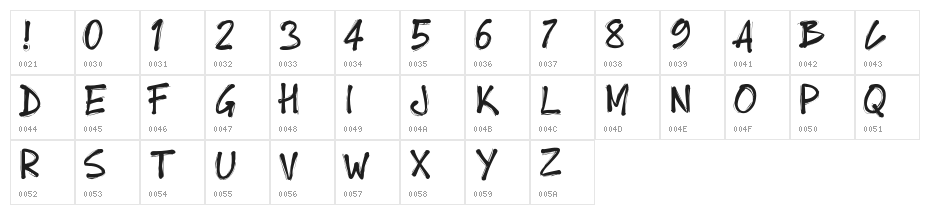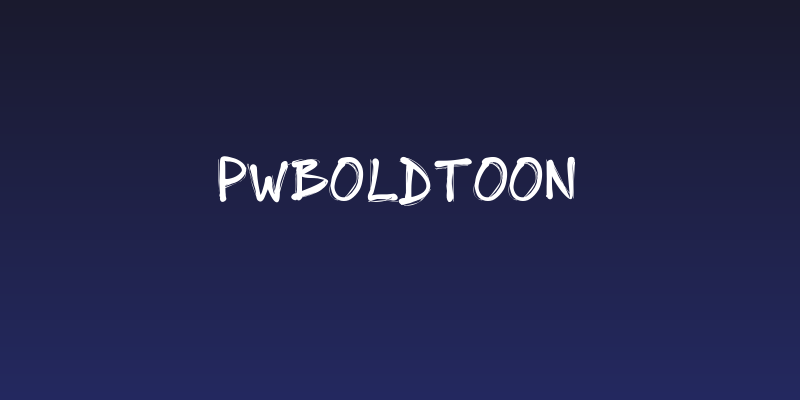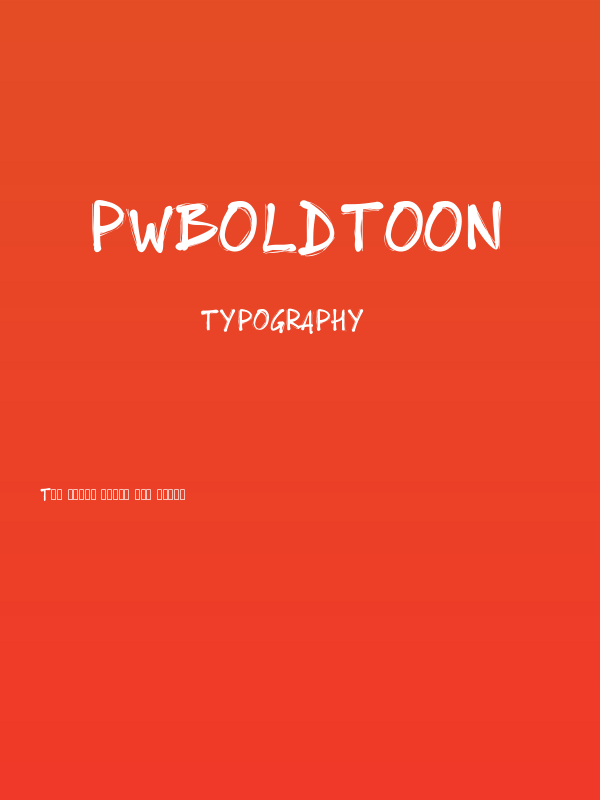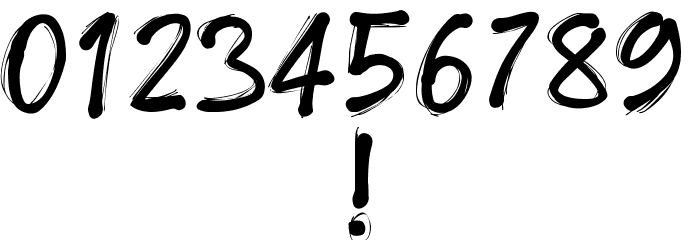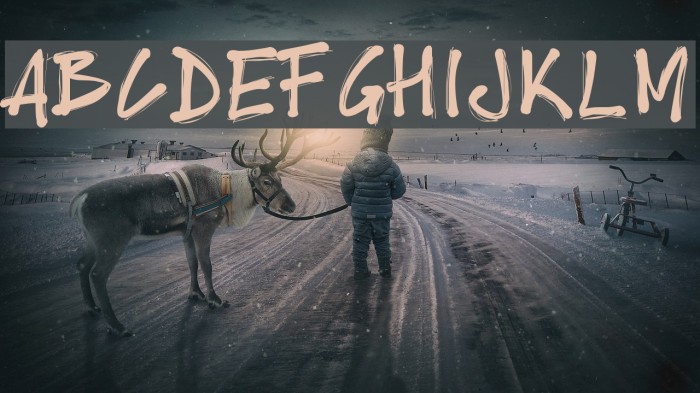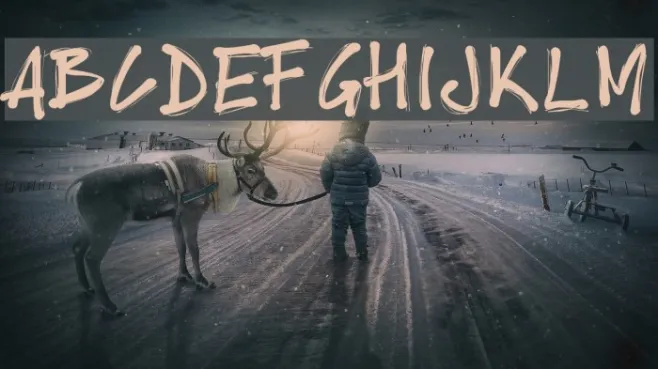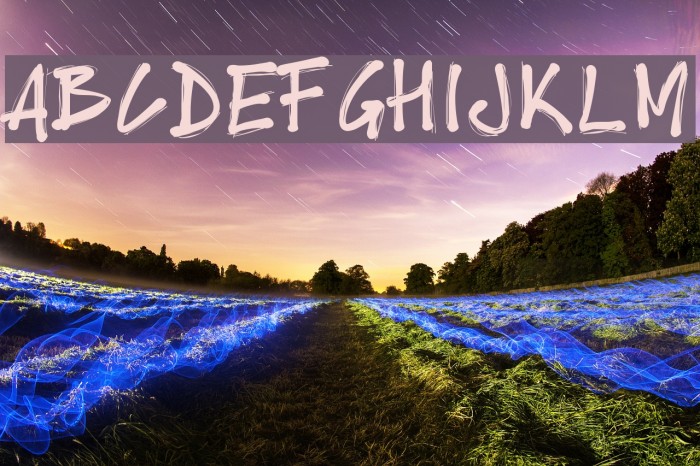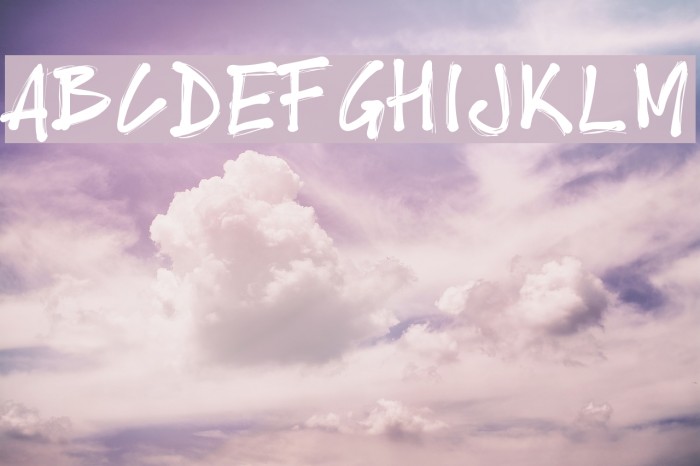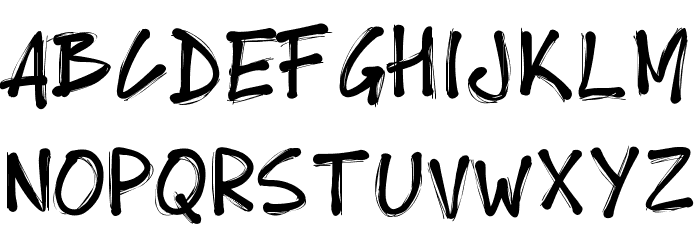
PWBoldToon Font
PWBoldToon Description
This font features a bold, expressive style with a hand-drawn appearance, reminiscent of brush strokes. The characters are dynamic and slightly irregular, giving them a playful and energetic feel. The uppercase and lowercase letters maintain a consistent style, with a slight slant that adds to the casual, informal look. The numbers are equally bold and maintain the same brush-like quality. This font is ideal for projects that require a lively and artistic touch, such as posters, comic books, or creative branding. The overall design is both eye-catching and approachable, making it suitable for a variety of creative applications.
| Overall Style | Playful, Artistic |
| Proposed Projects | Ideal for posters, comic books, creative branding, and artistic designs. |